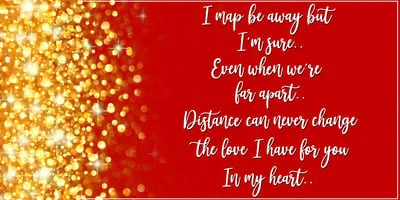
Natashabela Font
Natashabela Font is ideal for elegant design projects including luxury beauty salons, high-end fashion boutiques, sophisticated bridal studios, exclusive spa resorts, premium cosmetics packaging, upscale jewelry stores, elegant event planning, and refined lifestyle campaigns. This graceful typeface works perfectly for luxury perfume brands, elite beauty consultants, sophisticated wedding planners, high-fashion designers, and projects that celebrate feminine elegance and sophisticated beauty standards.
What makes Natashabela Font exciting is its sophisticated feminine character that perfectly captures the essence of luxurious beauty and elegant refinement. The font features flowing letterforms with graceful curves that reflect the delicate strength and timeless elegance of sophisticated femininity. Its refined design elements embody the spirit of luxury beauty and elegant sophistication, making it perfect for projects that need to convey grace, elegance, and connection to high-end beauty culture. The carefully crafted elegant proportions create an atmosphere of sophisticated beauty and refined femininity.
Natashabela Font comes in multiple family variations including elegant, sophisticated, graceful, and luxurious styles. Each weight maintains the distinctive feminine character while offering different levels of beauty intensity and elegant presence. The font family includes graceful alternates, elegant ligatures, and sophisticated variations that provide designers with comprehensive options for creating truly beautiful and authentically feminine typographic compositions that celebrate elegant living.
Whether you're designing beauty branding, creating elegant marketing materials, or developing sophisticated promotional graphics, Natashabela Font provides the perfect typographic foundation for projects that celebrate feminine excellence and elegant sophistication. This remarkable typeface transforms ordinary text into compelling expressions of beauty wisdom and elegant grace. Download this graceful font today and beautify your design projects with the sophisticated femininity and elegant refinement that captures the essential spirit of luxury beauty and graceful sophistication.